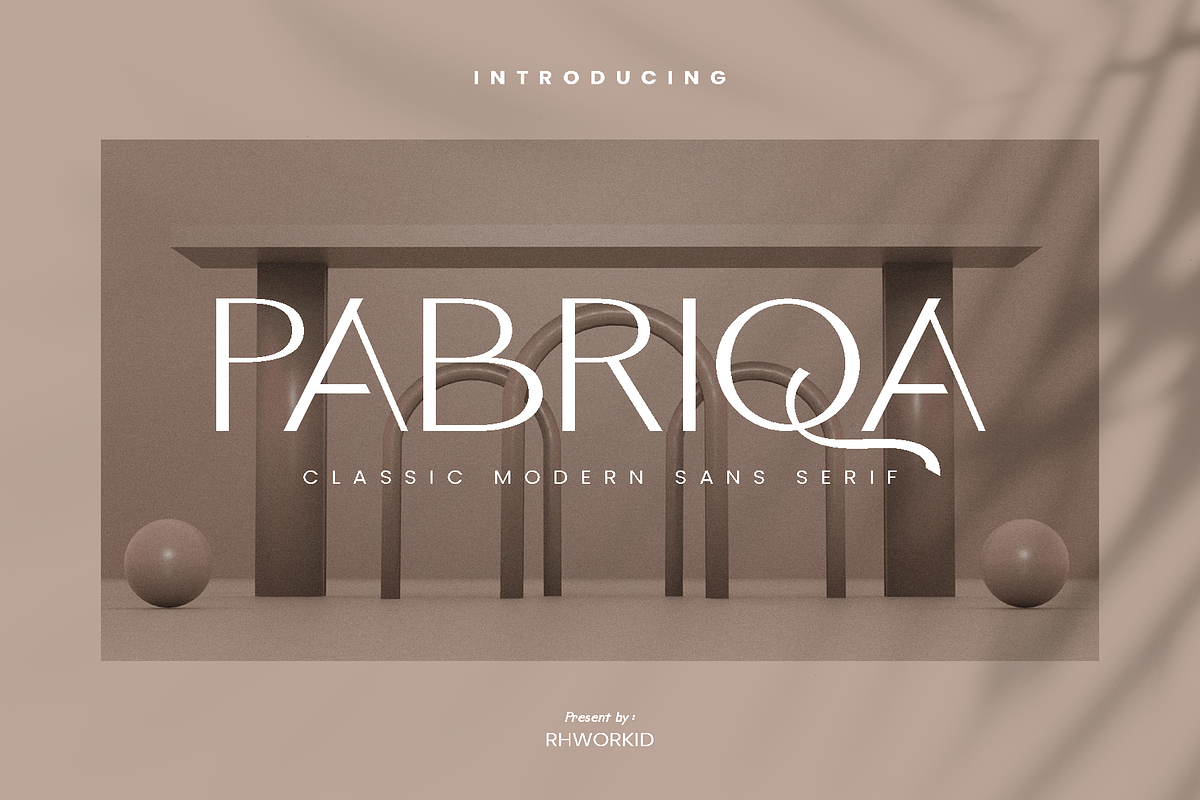
Pabriqa Font Free Download
Pabriqa Font Free Download is a modern, sleek typeface designed for versatile use across a range of projects. With its clean, minimalist lines and balanced design, Pabriqa is perfect for branding, editorial design, web content, logos, and much more.
The font’s simple yet sophisticated design allows it to work seamlessly in both large and small applications, from headlines to body text. Whether you're working on a digital project, print design, or branding materials, Pabriqa offers a professional and contemporary feel.